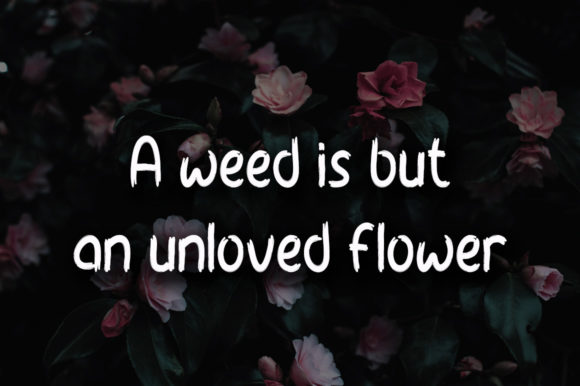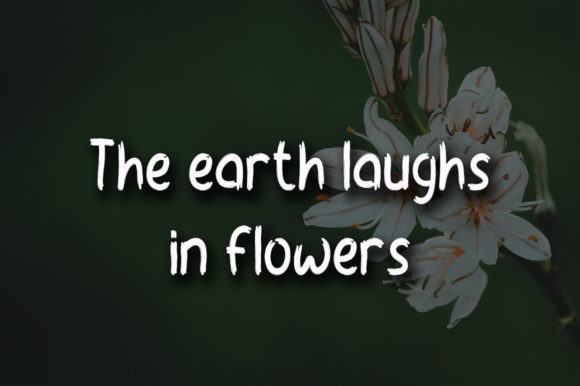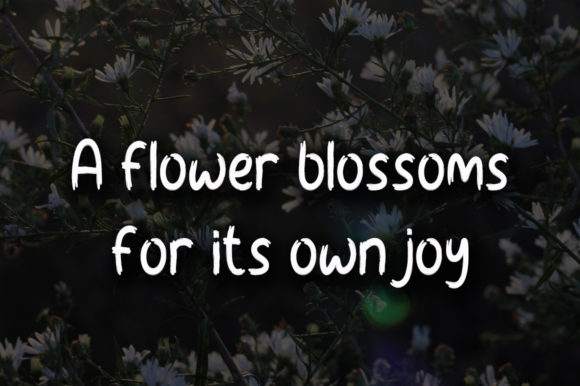
Introduction to Morning Flowers Font Font
Fonts play a crucial role in design, and the Morning Flowers Font font is a typeface that brings both character and versatility to any project. Whether you’re working on a branding project, a website, or a print design, the Morning Flowers Font font offers a unique style that can elevate your work.
Morning Flowers is a sweet, friendly and brushed handwritten font.
Key Features of Morning Flowers Font Font
Why Choose Morning Flowers Font Font?
The Morning Flowers Font font is more than just a typeface – it’s a design tool that helps you communicate your message with style and clarity. Its unique character set and versatile design make it suitable for a wide range of applications, from elegant invitations to bold headlines.
With its carefully crafted letterforms and balanced proportions, the Morning Flowers Font font ensures readability and visual appeal across all mediums.
What makes Morning Flowers Font font special?
The Morning Flowers Font font stands out with its unique design, exceptional readability, and versatility across various design applications.